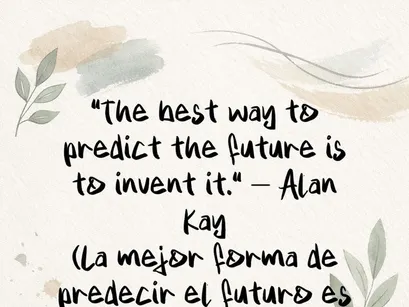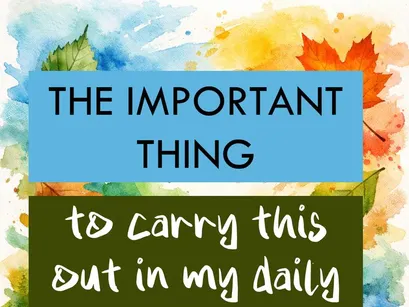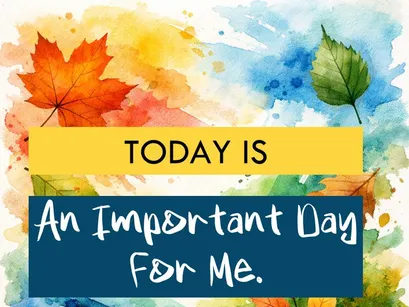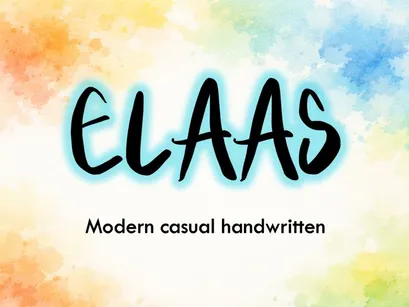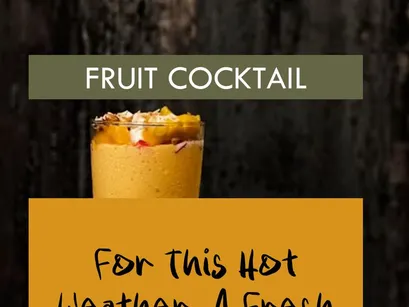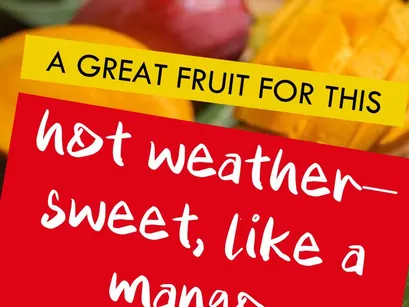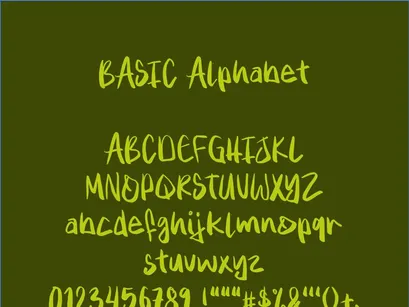
ELAAS is a modern, casual handwritten typeface featuring natural, balanced strokes, designed for projects that call for a legible, handcrafted style. This "Basic" version includes the standard Latin alphabet, numerals, and essential symbols—making it ideal for planners, motivational quotes, booklets, and simple designs with a human touch.
Its clean, fluid structure makes it perfect for short texts and creative compositions.